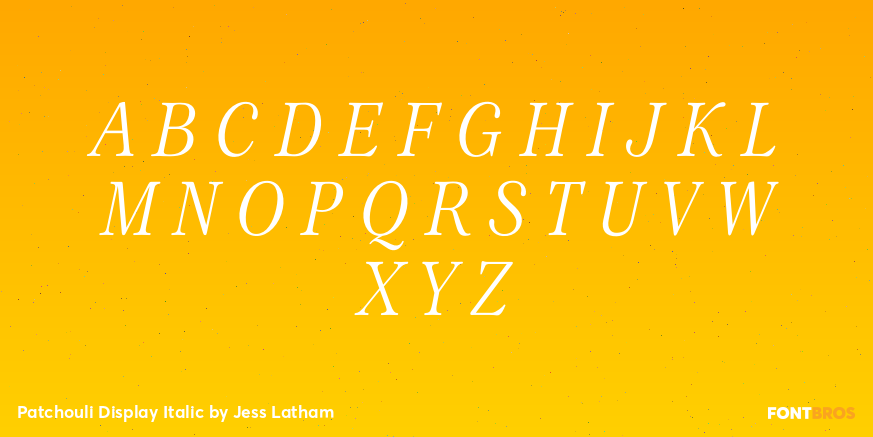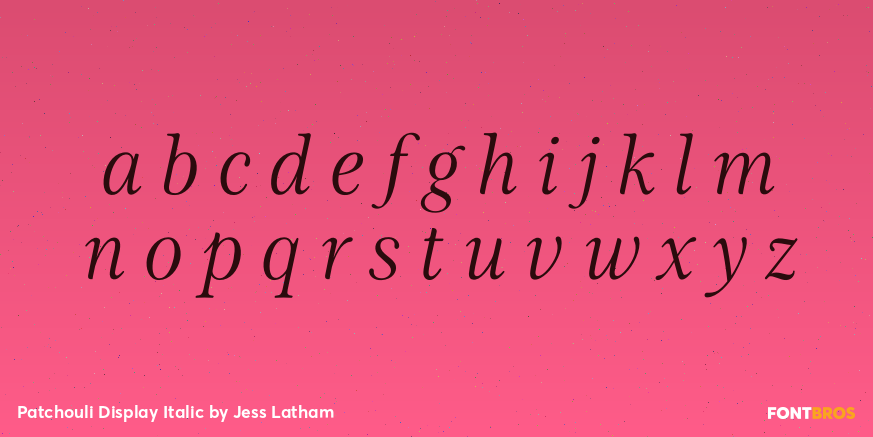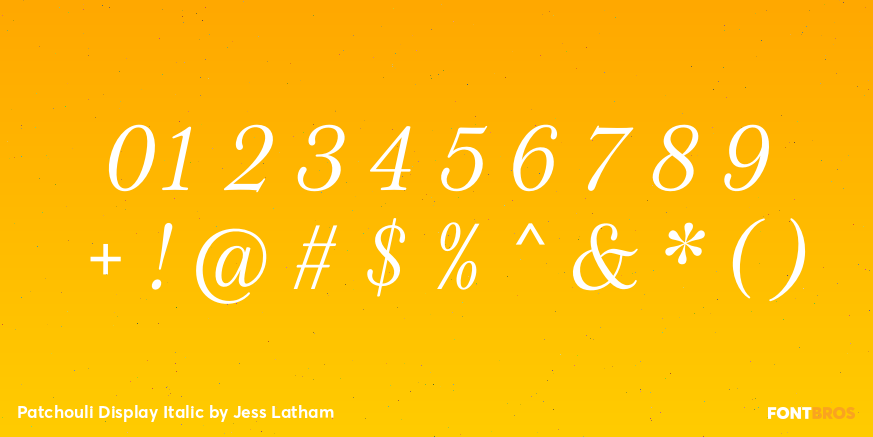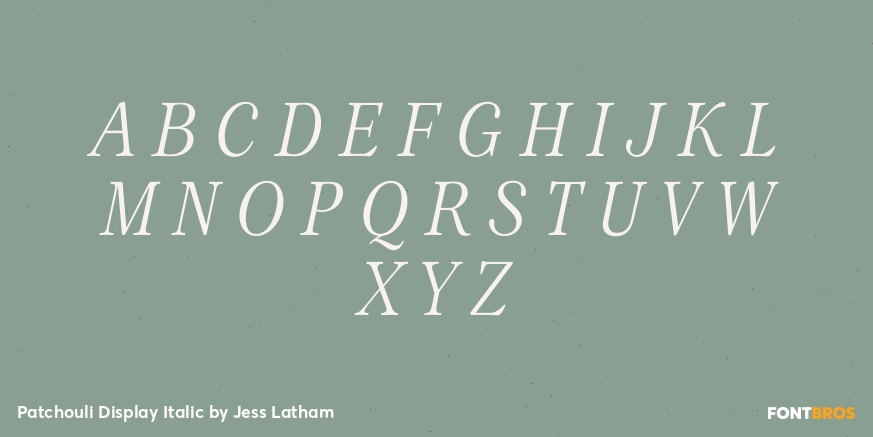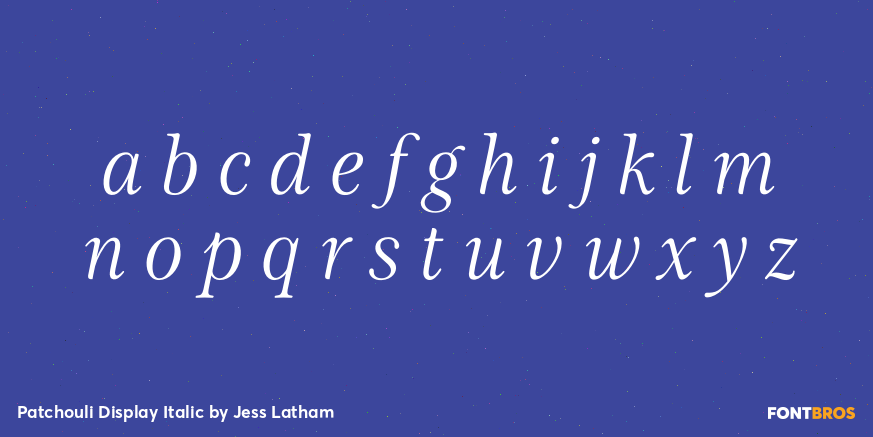
Patchouli Display Italic
Font Family by Jess Latham
The design of Patchouli Display began in 2009. My goal was to do design a display face that would be casual and soft. The family contains italics and bolds and each font is loaded with elegant swashes.
The font also includes OpenType features such as: fractions, ornaments, oldstyle numerals, ordinals, ligatures and discretionary ligatures.
Regular and regular bold have small caps.